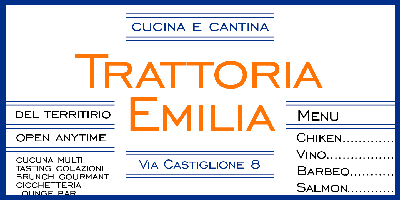
Bensonhurst JNL Font is perfect for Brooklyn neighborhood branding, New York deli signage, urban Italian-American restaurant menus, vintage borough promotions, classic pizzeria logos, old-school barbershop designs, nostalgic subway station graphics, retro NYC tourism campaigns, authentic neighborhood merchandise, local community newsletters, and any project that requires genuine Brooklyn character with authentic urban heritage.
What makes Bensonhurst JNL Font exciting is its authentic capture of classic Brooklyn neighborhood spirit through distinctive letterforms that embody the working-class pride and Italian-American heritage of this iconic New York borough. This characterful typeface features bold, confident strokes with neighborhood authenticity that evoke the bustling streets and family-owned businesses that define Brooklyn's cultural landscape. The font's borough character adds instant local credibility and urban authenticity to any design, making it perfect for brands celebrating Brooklyn heritage and neighborhood culture.
Bensonhurst JNL Font comes in multiple font families including Regular, Bold, Light, Condensed, Outline, and Neighborhood variations, providing designers with comprehensive options to create authentic compositions and achieve the perfect Brooklyn aesthetic for urban-focused design projects.
Whether you're developing Brooklyn business branding, creating neighborhood cultural materials, or designing authentic urban campaigns, Bensonhurst JNL Font Free Download offers the perfect solution for projects demanding genuine borough character and New York authenticity. This distinctive typeface excels in display applications where neighborhood presence is essential, ensuring your designs communicate Brooklyn pride and urban heritage. The authentic character and borough styling of Bensonhurst JNL Font make it an indispensable tool for designers who prioritize urban authenticity, neighborhood culture, and genuine Brooklyn heritage in their typographic selections.